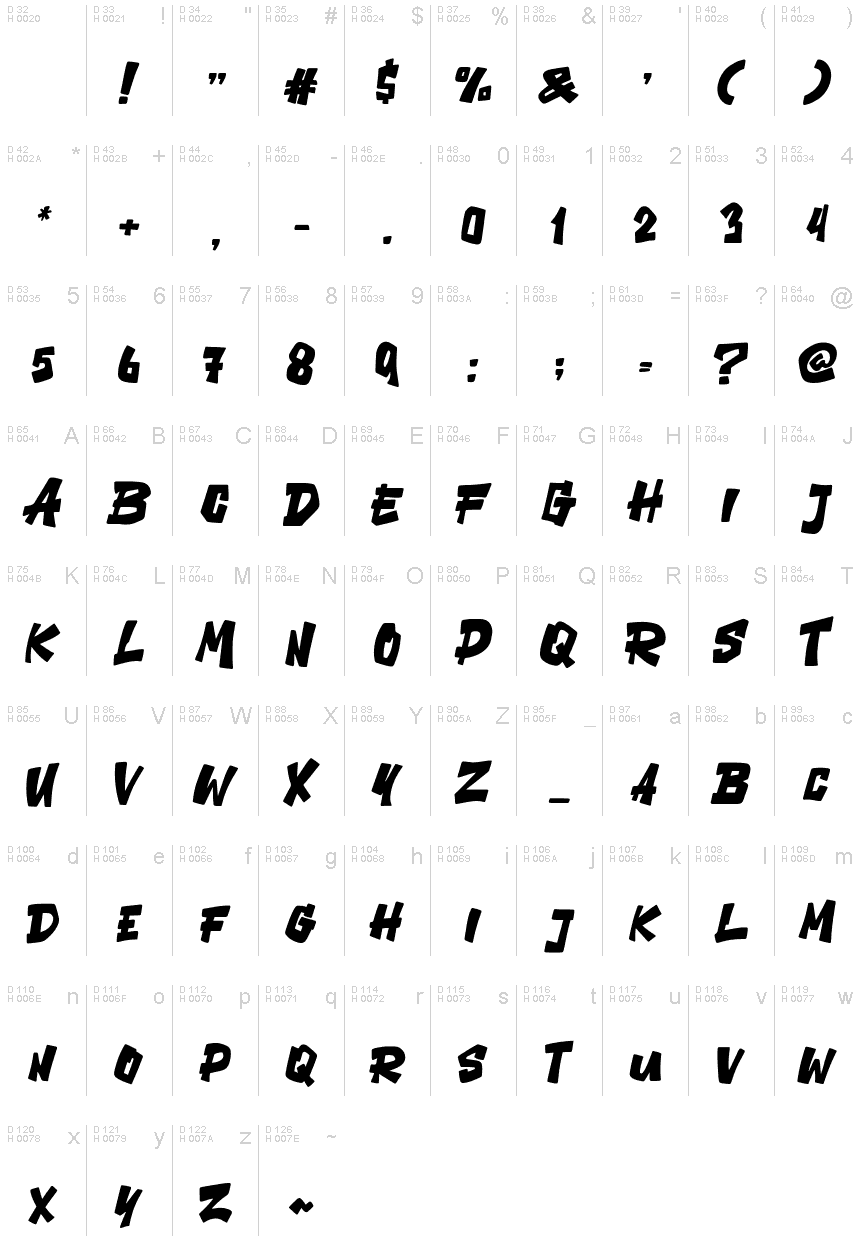
Bigdex
Bigdex, designed by Khurasan, is an extra-bold display font that brings a modern and bold touch to your designs.
With its comic style, this quirky handwritten font is perfect for creating eye-catching posters, logos, magazines, book covers, banners, and more! Let Bigdex add a unique charm to your creative projects and watch them stand out from the crowd. Its versatility allows it to seamlessly match a wide range of design concepts and ideas.
Embrace the playful nature of Bigdex and bring your imagination to life with this captivating font!